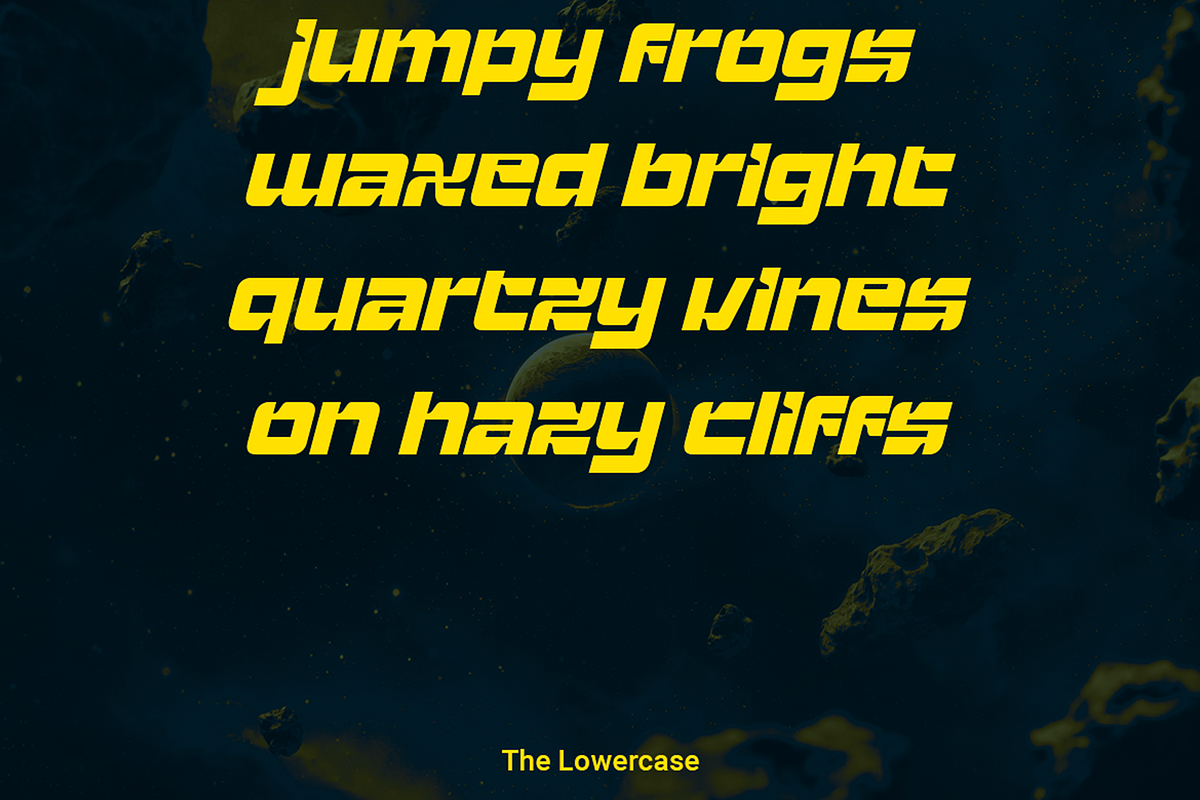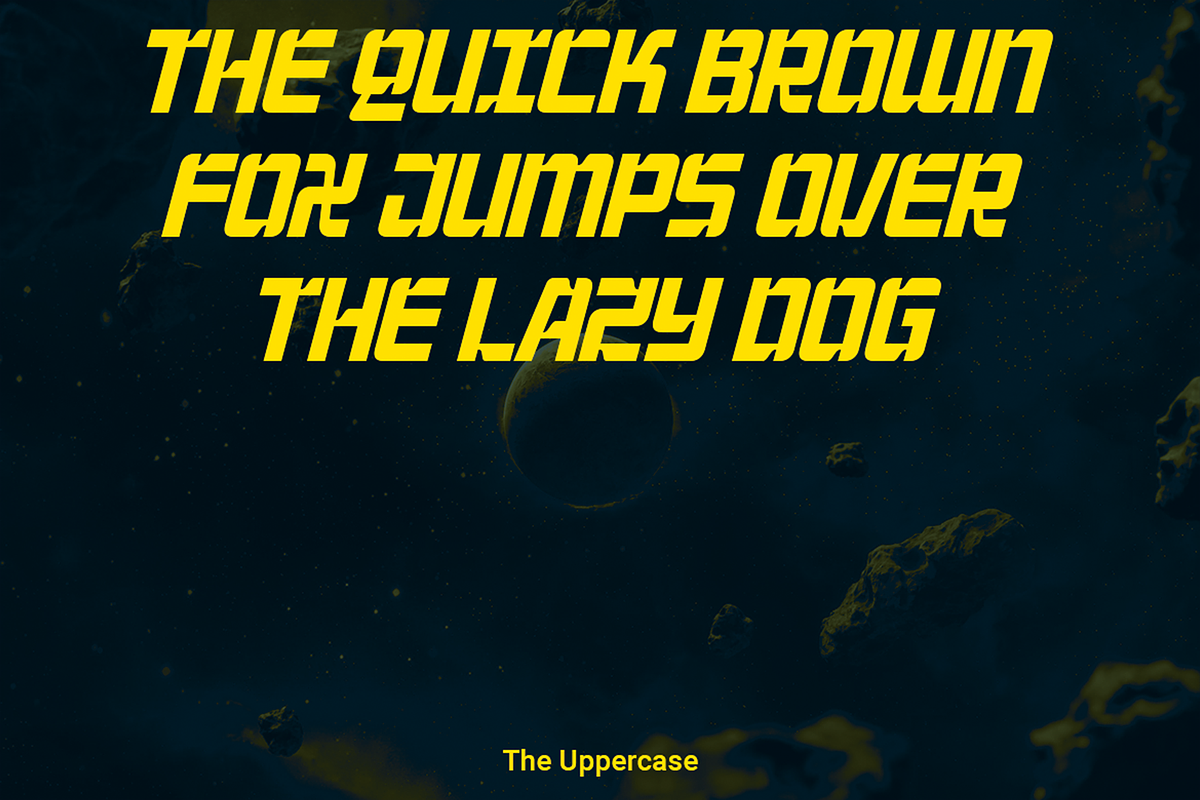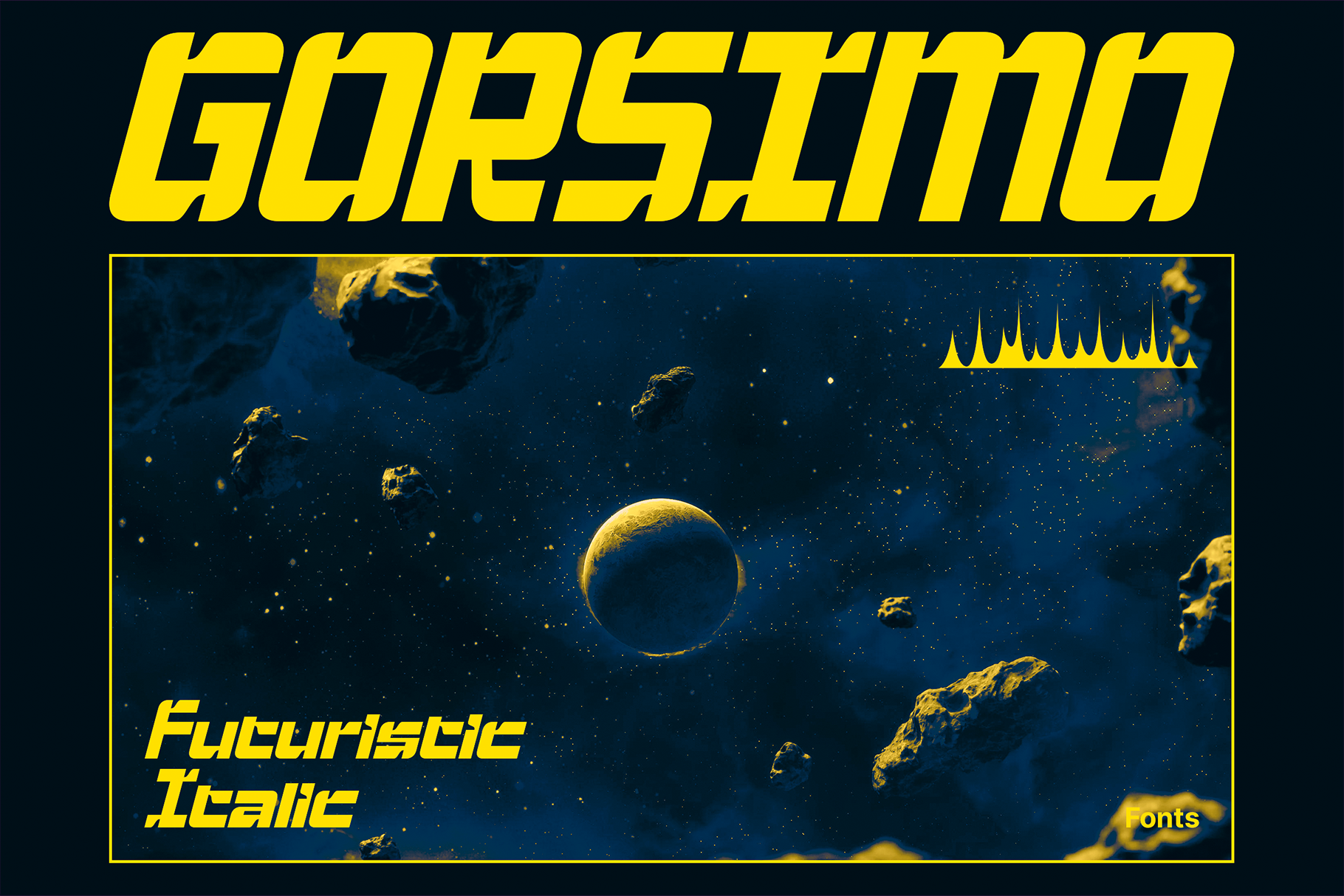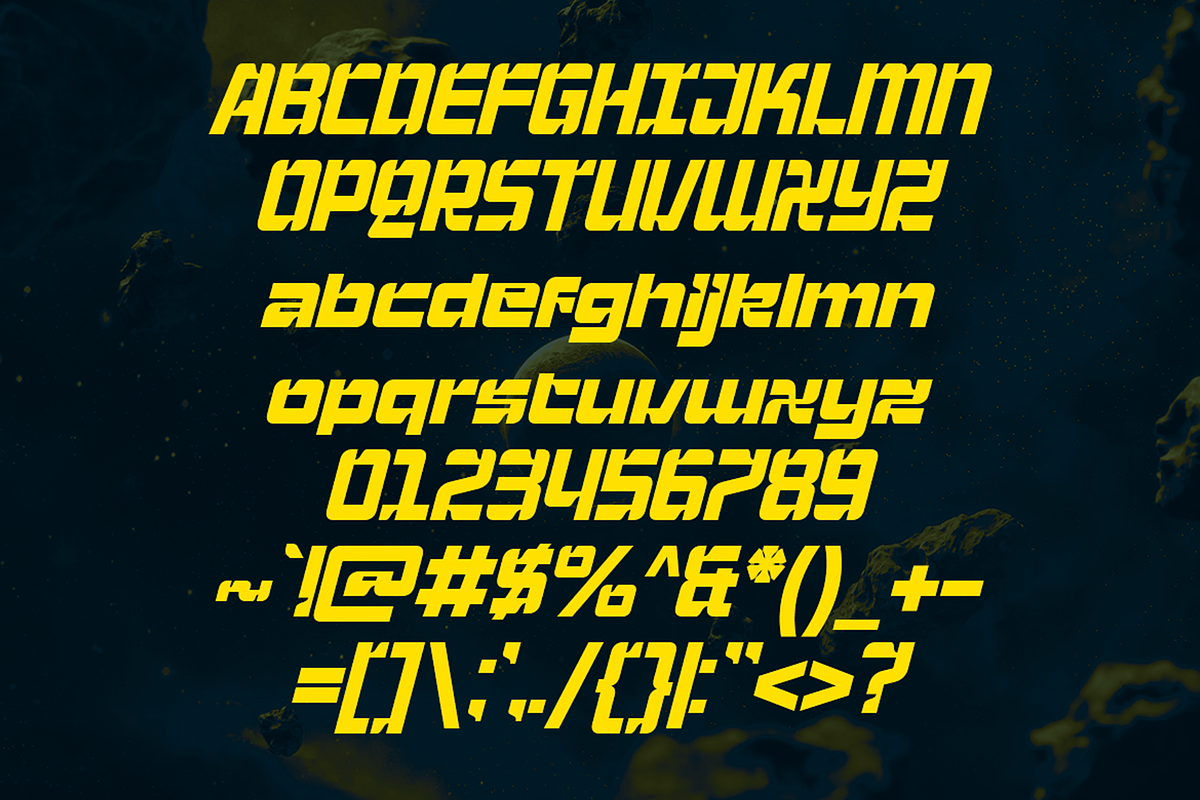
Gorsimo - Futuristic Italic Fonts
Gorsimo: The Future in Motion
Get ahead with Gorsimo, a futuristic font designed with an italic shape that exudes speed, innovation, and the spirit of sci-fi. Its dynamic curves and forward-leaning angles are perfect for projects that need to convey a sense of motion and cutting-edge design. Whether you’re crafting branding, logos, gaming products, or working on technology peripherals, Gorsimo injects an experimental vibe that stands out in any futuristic landscape.
Ideal for creating visual identities in the world of gaming, tech, and beyond, Gorsimo’s unique style feels fast, sleek, and effortlessly modern. Elevate your designs with a font that’s built to push boundaries—Gorsimo is here to set the pace in the race to the future.